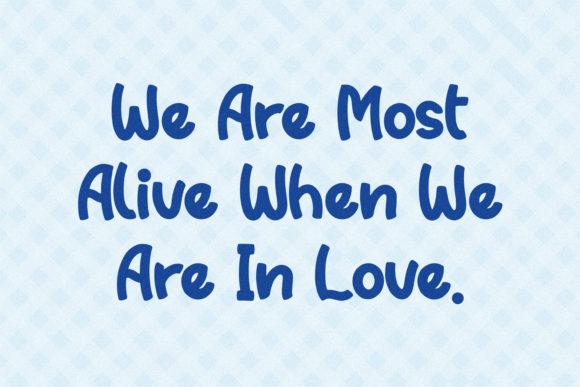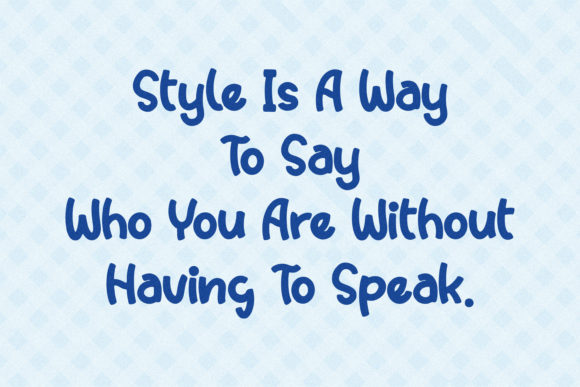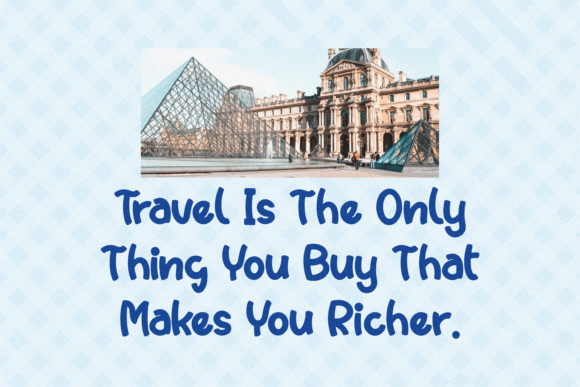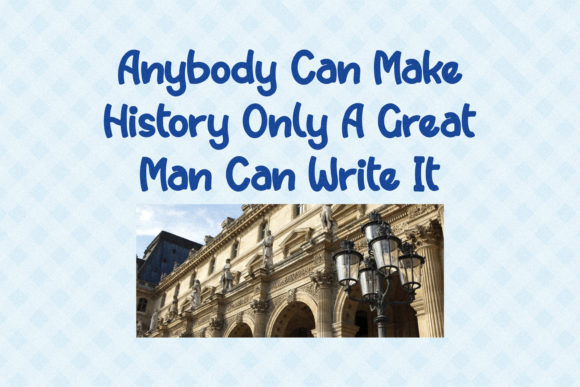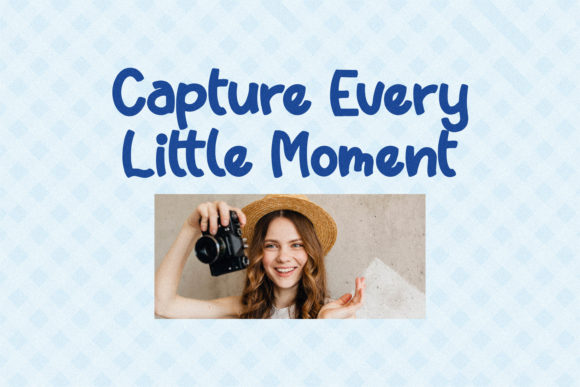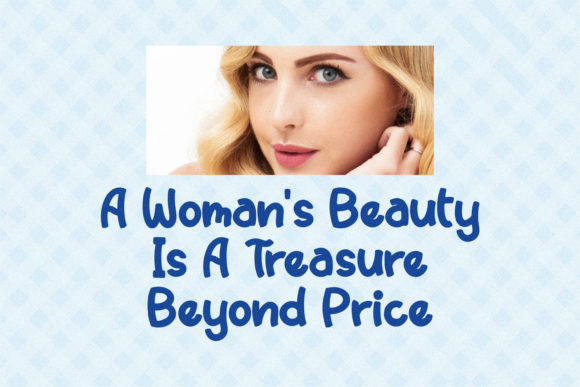
Introduction to Jacky Boys Font Font
Fonts play a crucial role in design, and the Jacky Boys Font font is a typeface that brings both character and versatility to any project. Whether you’re working on a branding project, a website, or a print design, the Jacky Boys Font font offers a unique style that can elevate your work.
Jacky Boys is a cool, incredibly cute and bubbly display font.
Add it to each of your party invitation, gathering or pretty much any design that requires a touch of youth and joy .
Key Features of Jacky Boys Font Font
Why Choose Jacky Boys Font Font?
The Jacky Boys Font font is more than just a typeface – it’s a design tool that helps you communicate your message with style and clarity. Its unique character set and versatile design make it suitable for a wide range of applications, from elegant invitations to bold headlines.
With its carefully crafted letterforms and balanced proportions, the Jacky Boys Font font ensures readability and visual appeal across all mediums.
What makes Jacky Boys Font font special?
The Jacky Boys Font font stands out with its unique design, exceptional readability, and versatility across various design applications.